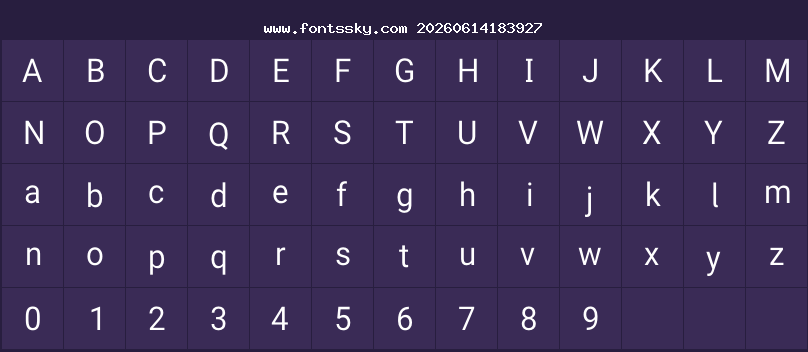
RobotoJ Preview
• Font Name: RobotoJ
• Font ID: RobotoJ Regular
• Full Font Name: RobotoJ Regular
• Version: Version 1.18; 2015-08-14
• PostScript Name: RobotoJ-Regular
• Character Count: 18905
About RobotoJ.otf
RobotoJ.otf is a modern, elegant sans-serif font designed for ultimate readability and visual harmony. Perfect for branding, headlines, web design, and print materials.